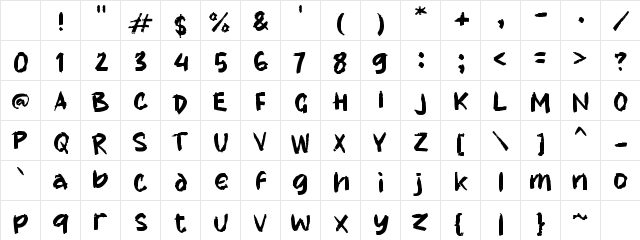
Complete K Kurang Lebih Regular glyph index. Displaying only characters natively supported by K Kurang Lebih Regular font.
K Kurang Lebih is a composed and adaptable typeface that performs quietly and consistently across a wide range of design contexts.